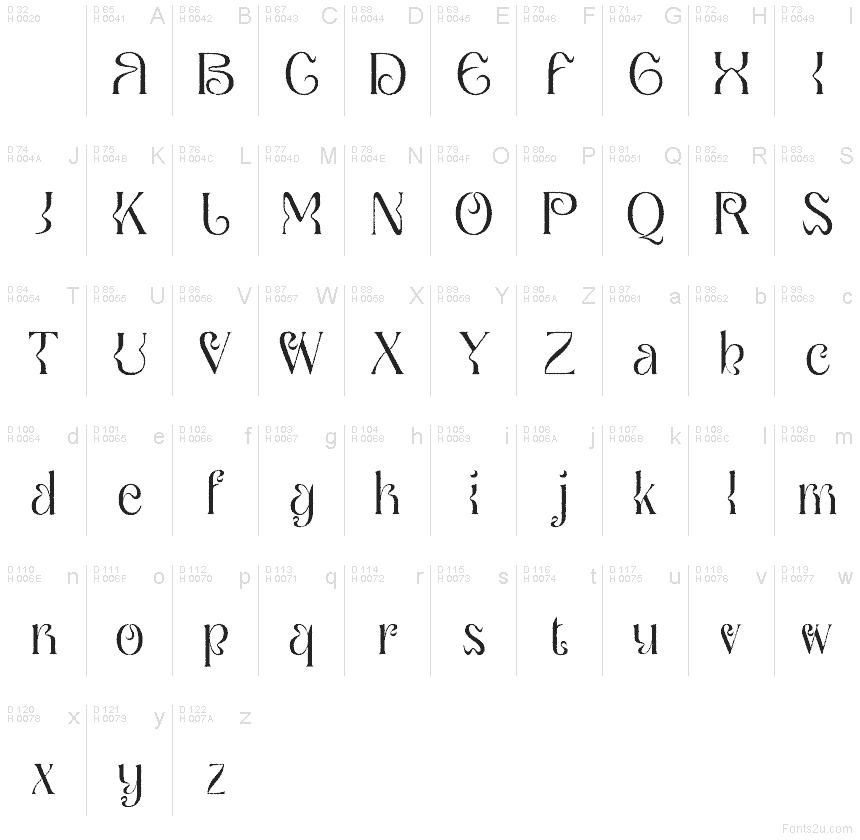
Qaila Rough Regular Demo
Qaila Rough font by Craft Supply Co. is an elegant display font that brings together retro script style and a historic essence. The expressive typeface carries an artistic flair and decorative appeal suitable for modern-day project designs but with a vintage edge.